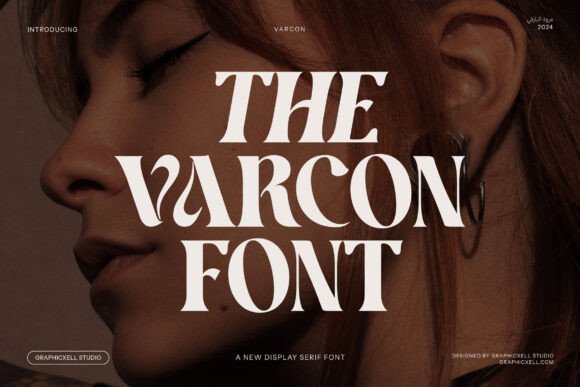
Varcon Font: Elevate Your Design with Elegance and Sophistication
In the world of typography, fonts play a crucial role in conveying the tone and personality of a brand or design. Among the myriad of fonts available, Varcon stands out as a captivating and distinctive serif font that effortlessly combines elegance with a vintage flair. Its unique character set, designed with irregular yet graceful curves, makes it an ideal choice for projects that demand sophistication and a touch of nostalgia.
What is Varcon Font?
Varcon is an elegant display font that captures attention with its bold, stylish presence, making it the perfect solution for logos, branding, and any design that needs to stand out with personality and refinement. The font’s design is characterized by its distinct serif details, which bring an air of tradition while maintaining a modern sensibility.
Key Features of Varcon Font
- Unique Character Set: Varcon boasts a unique character set with irregular yet graceful curves, setting it apart from more traditional serif fonts.
- Elegant and Vintage Flair: The font combines elegance with a vintage touch, making it perfect for designs that require a sophisticated and nostalgic feel.
- Distinct Serif Details: Varcon’s serif details add a layer of tradition and sophistication to any design.
- Versatile: The font is versatile and works seamlessly across a wide range of creative applications, from digital to print.
Applications of Varcon Font
Varcon’s striking form adds a layer of sophistication and charm to any project. Its timeless appeal makes it suitable for various creative applications, including:
- Websites: Varcon is perfect for crafting eye-catching websites that require a touch of elegance and sophistication.
- Editorial Layouts: The font is ideal for designing editorial layouts for high-end magazines, adding a layer of refinement and luxury.
- Brand Identity: Varcon is an excellent choice for developing a brand identity that requires a unique and stylish presence.
- Logos and Branding: The font’s bold and stylish presence makes it perfect for logos and branding materials that need to stand out.
- Advertising: Varcon lends itself beautifully to advertisements, especially those in the fashion, food, and lifestyle sectors.
Suitability for Various Projects
Varcon is particularly suitable for boutique businesses, where its elegant and refined touch can elevate branding materials, such as:
- Product Labels: Varcon adds a sense of exclusivity and luxury to product labels.
- Signage: The font’s unique character set and serif details make it perfect for signage that requires a touch of sophistication.
- Packaging: Varcon can add a layer of elegance to packaging designs, making products stand out on store shelves.
Benefits of Using Varcon Font
The benefits of using Varcon font include:
- Unique and Memorable: Varcon’s unique character set and serif details ensure it will never go unnoticed, leaving a lasting impression across any medium.
- Versatile: The font’s timeless appeal and elegant design make it versatile for both contemporary and classic designs.
- Elegant and Refined: Varcon adds a touch of elegance and sophistication to any design, making it perfect for projects that require a refined touch.
In conclusion, Varcon font is an excellent choice for designers and brands looking to add a touch of elegance and sophistication to their projects. Its unique character set, distinct serif details, and timeless appeal make it versatile for various creative applications. Whether you’re designing for print or digital, Varcon is the ideal choice for bringing your vision to life with an unforgettable, refined touch.